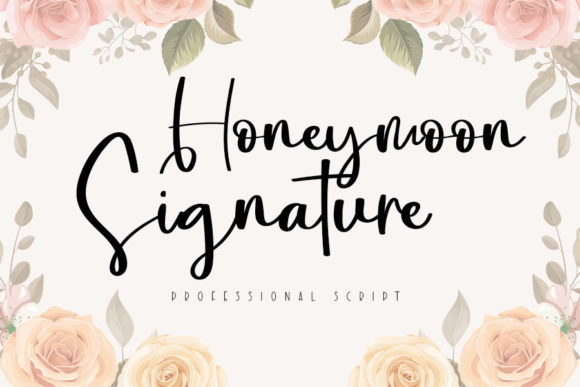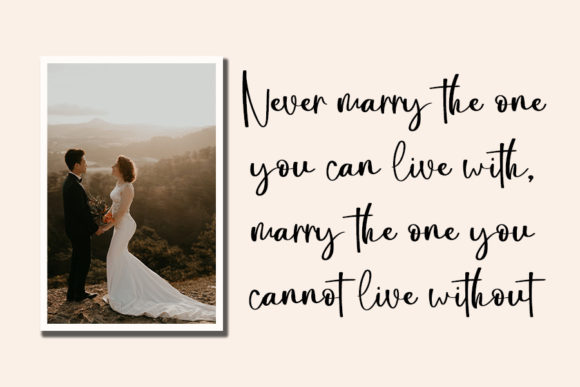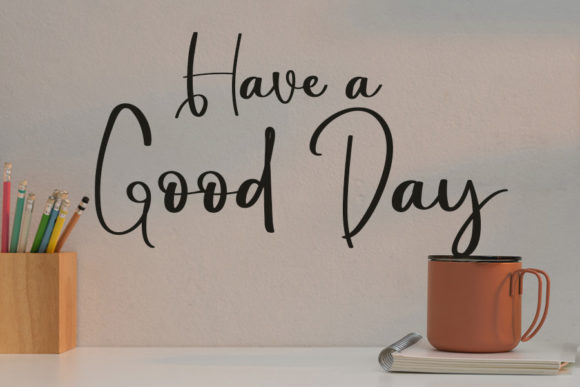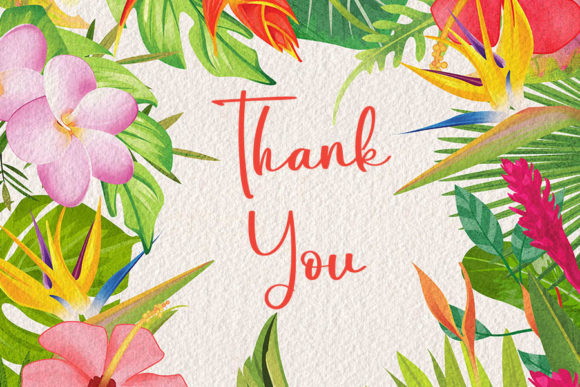
Honeymoon Signature Font
About Honeymoon Signature Font
Honeymoon Signature is an exquisite handwritten font, masterfully designed to become a true favorite. It maintains its classy calligraphic influences while feeling contemporary and fresh. Fall in love with it and bring your projects to the highest levels!